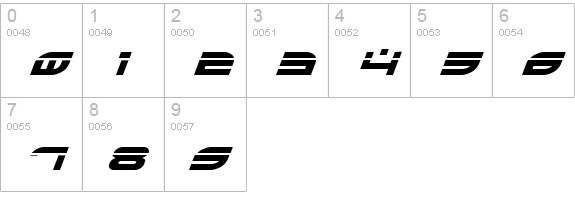
Battlefield Laser Italic is a distinctive, italic variant in the Battlefield typeface family \xE2\x80\x94 well suited to design and typography projects.
Introducing Battlefield Laser Italic, a sleek and modern font that exudes power and sophistication. With its sharp angles and futuristic design, this font is perfect for projects that require a strong and dynamic aesthetic. Whether you're creating a cutting-edge logo, designing a high-tech website, or crafting a futuristic poster, Battlefield Laser Italic will make a bold statement. Best of all, this font is available for free download at FontsMarket.com. Don't miss out on the opportunity to add this stunning typeface to your collection today!